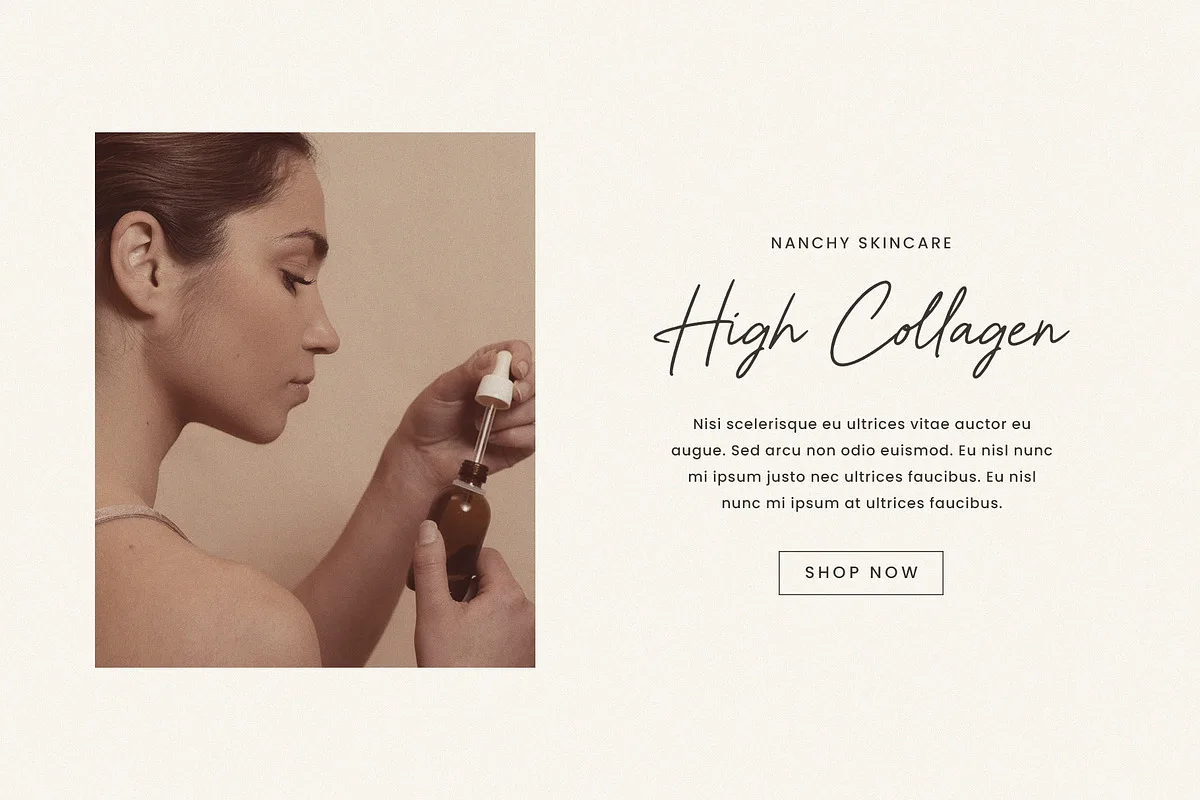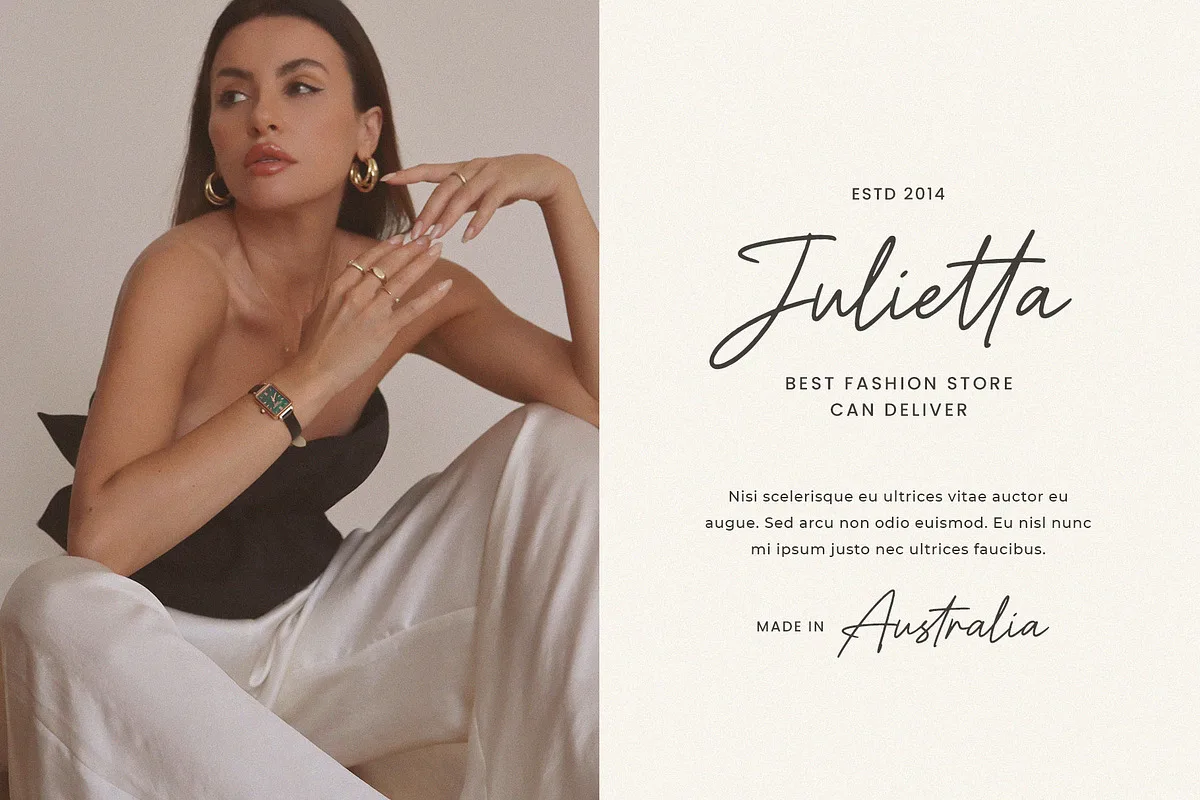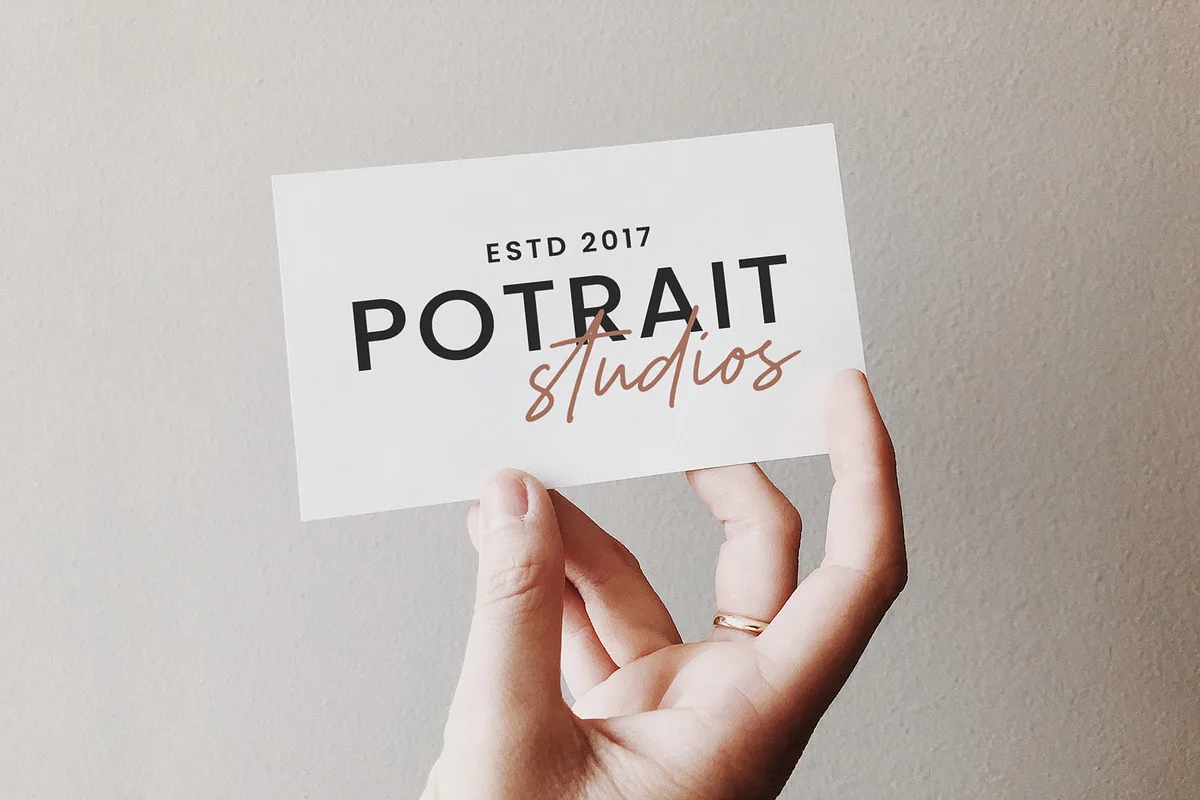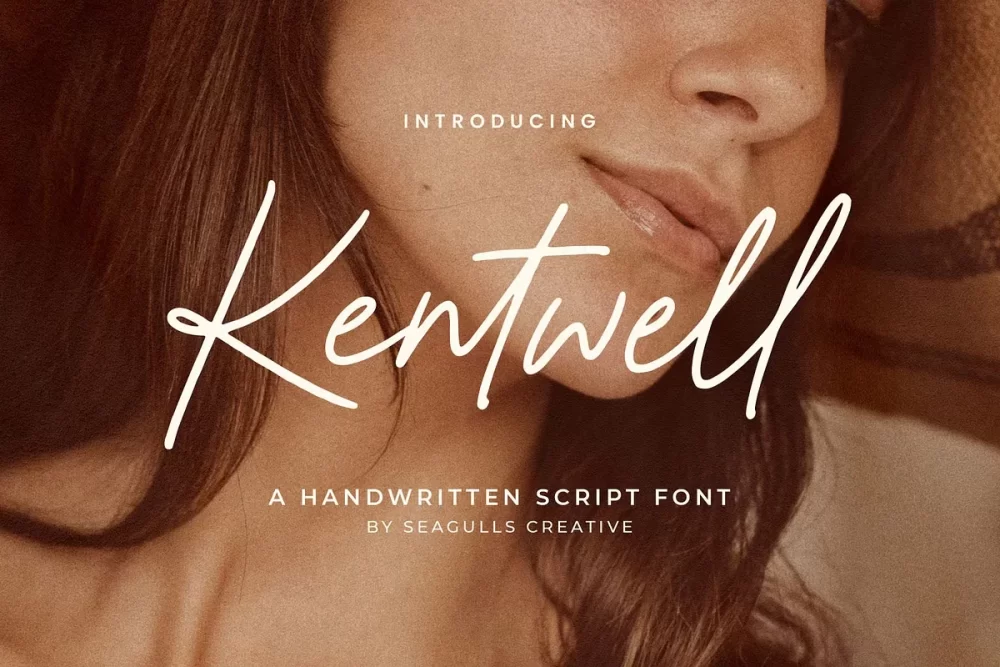
Kentwell is a modern and stylish handwritten font. It can be used for a variety of projects such as branding, labels, photography, invitations, stationery, wedding designs, social media posts, advertising, product packaging, product design, and more.
Kentwell Handwritten Font